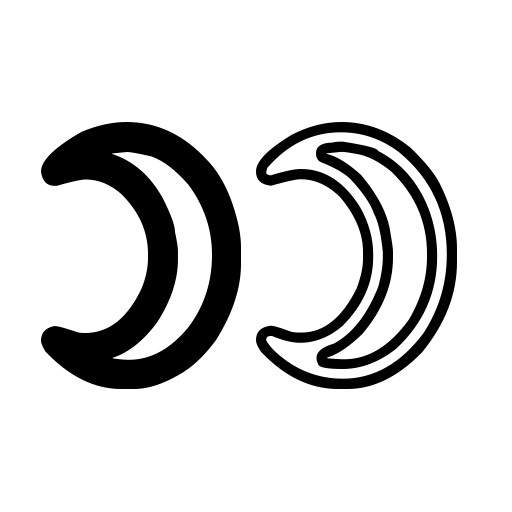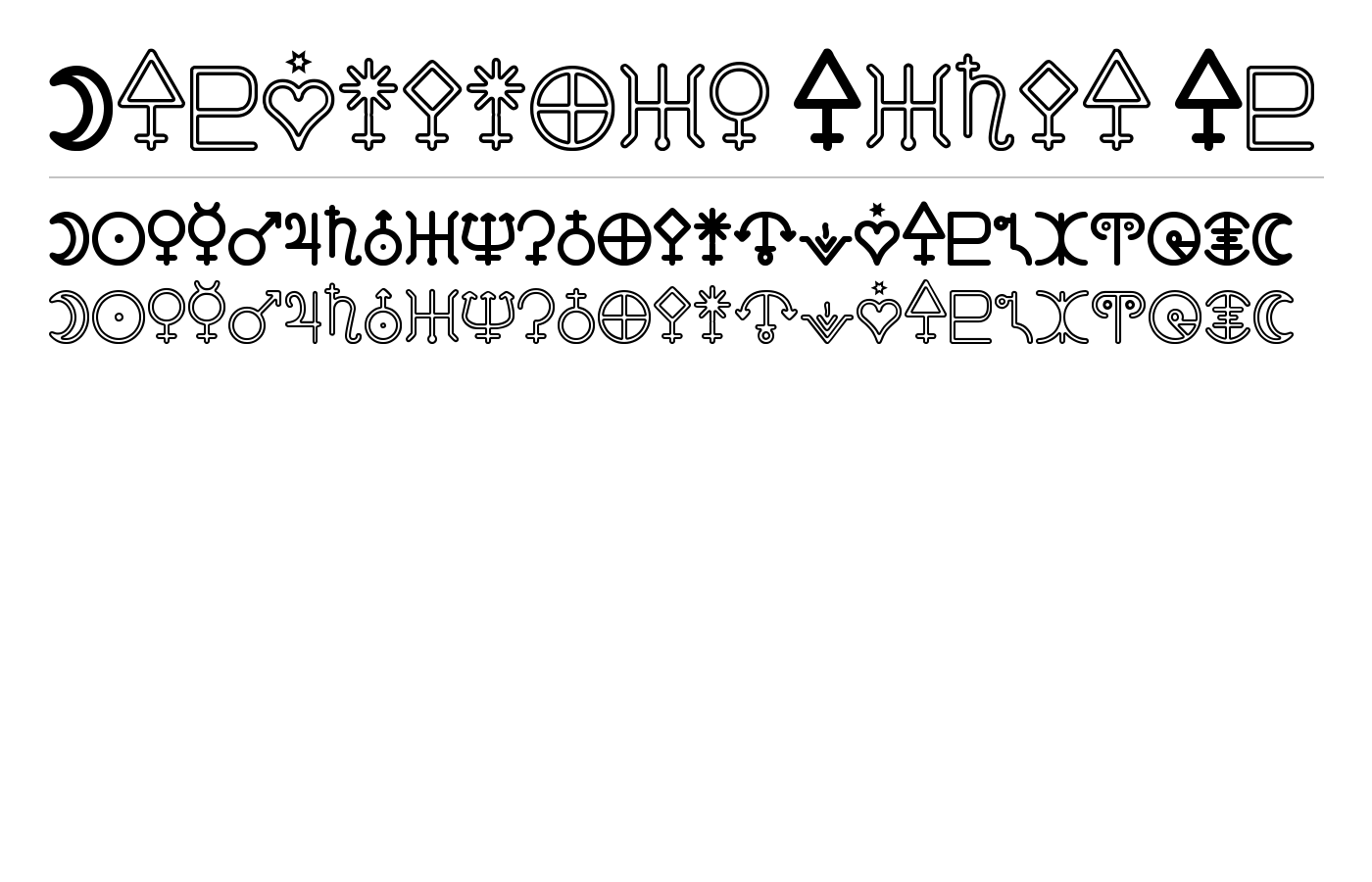
Astronomic Signs St is a decorative symbol font featuring bold, clean lines that form clear, geometric shapes representing various celestial and astrological icons. Its balanced weight and well-defined strokes create a modern, mystical feel that makes it ideal for use in astrology-themed designs, branding, or creative projects seeking an otherworldly or cosmic aesthetic. This font works best for headlines, logos, and decorative purposes where its unique symbolic nature can stand out.
Astronomic Signs St Font
About Astronomic Signs St Font
| Font family | Astronomic Signs St Font |